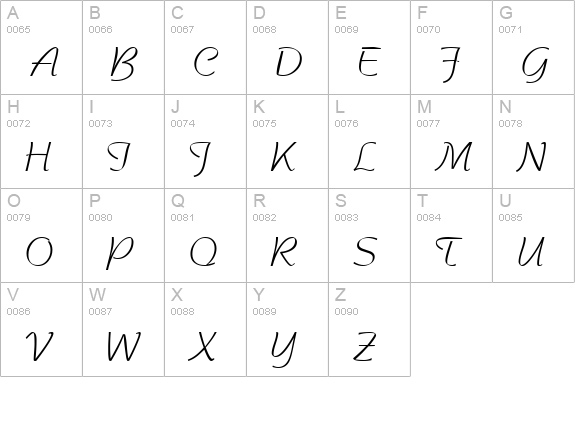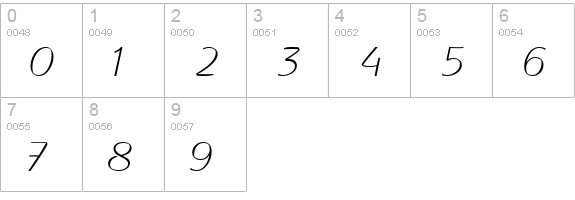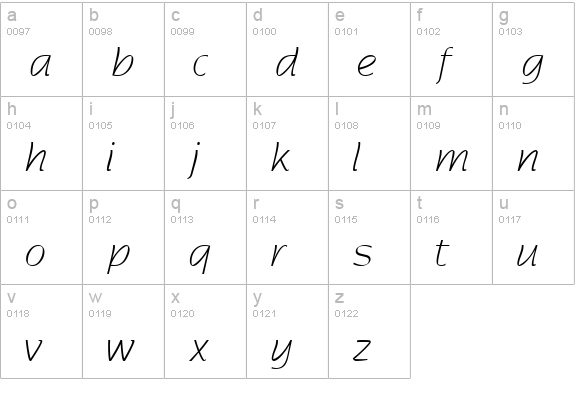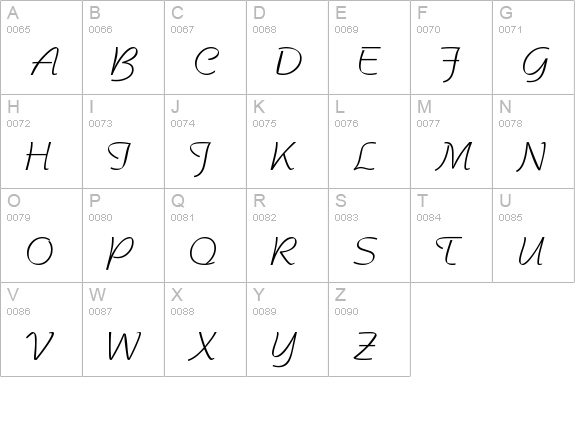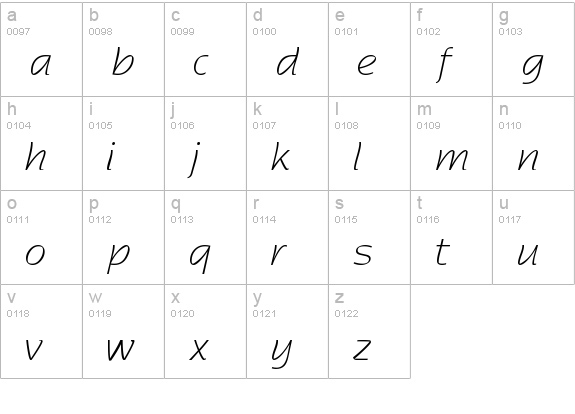
RossonLightSSK Font Details
RossonLightSSK is a beautifully crafted font that exudes elegance and sophistication. Its sleek lines and modern curves make it perfect for a wide range of design projects, from branding to editorial layouts. The delicate and refined nature of RossonLightSSK adds a touch of class to any visual composition. What makes RossonLightSSK even more special is that it is available for free download at FontsMarket.com. This means that you can easily access this stunning font without any cost, making it a valuable addition to your font collection. Whether you're a professional designer or a hobbyist, RossonLightSSK offers endless possibilities for creative expression. Download it now and elevate your designs with this exquisite typeface.